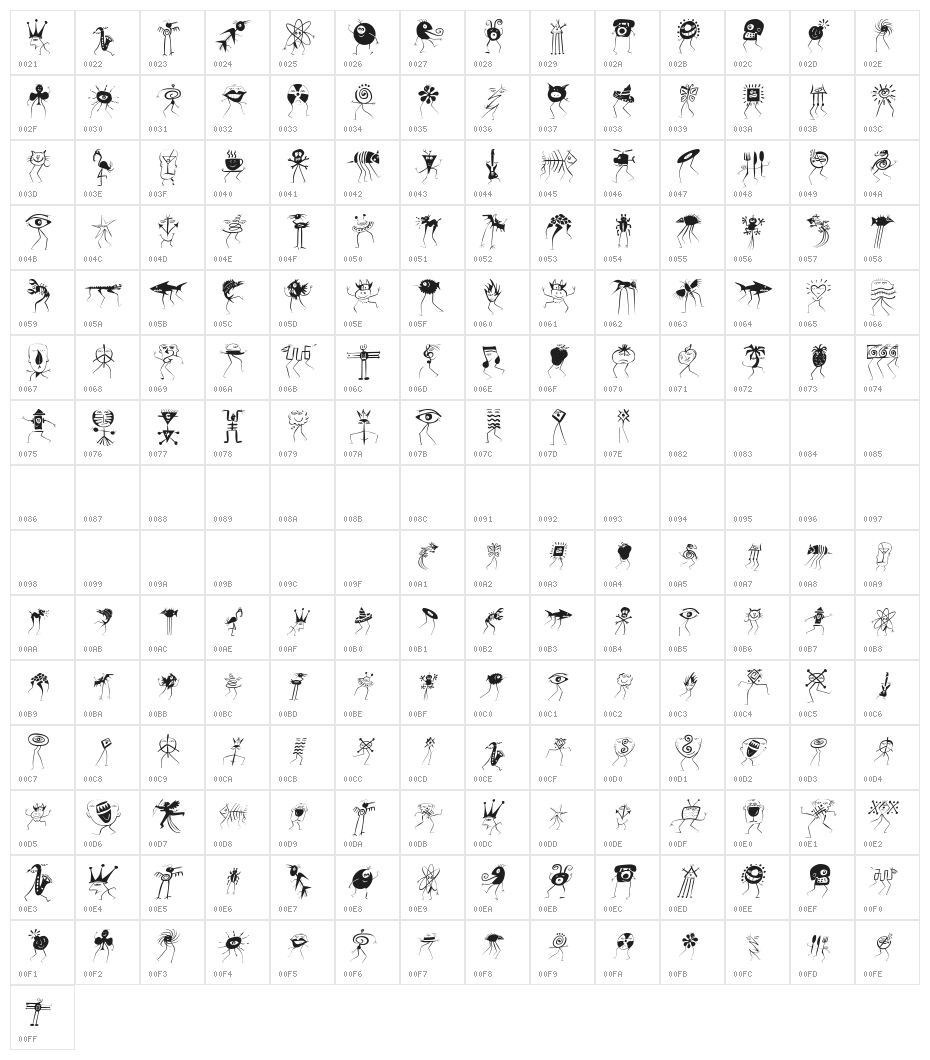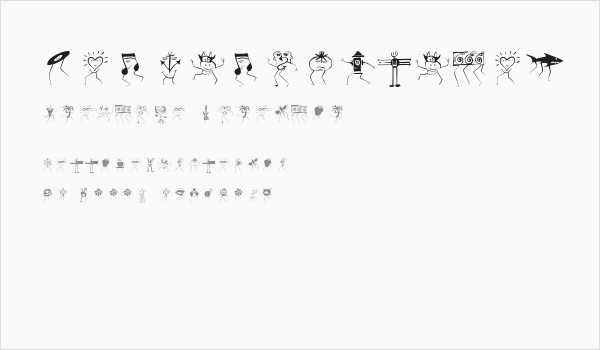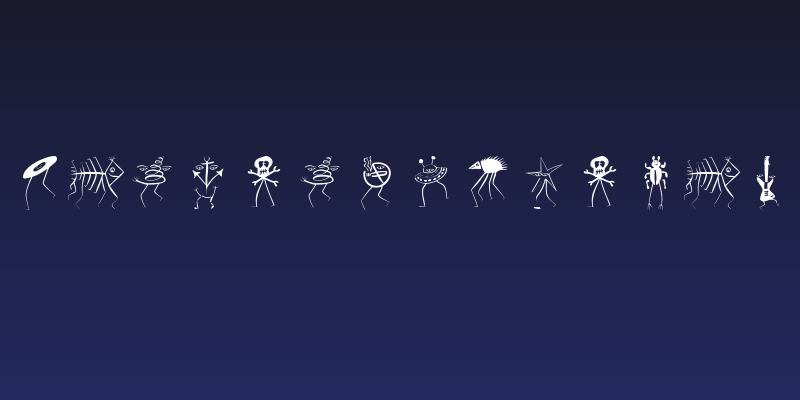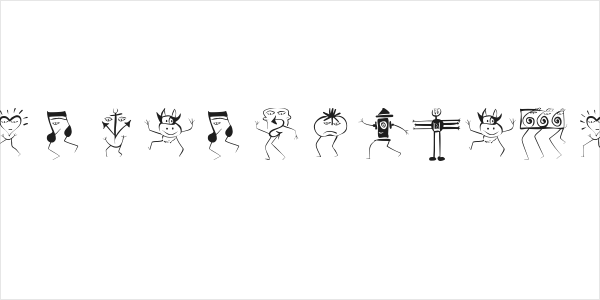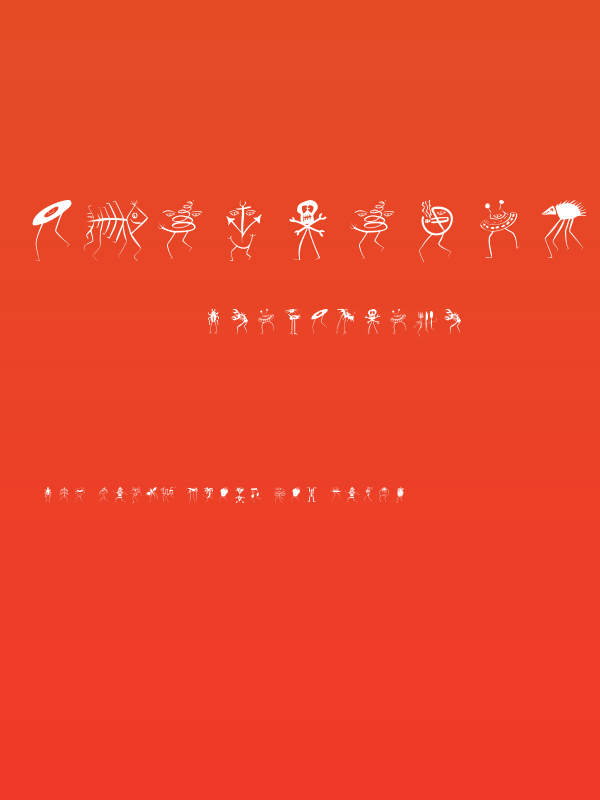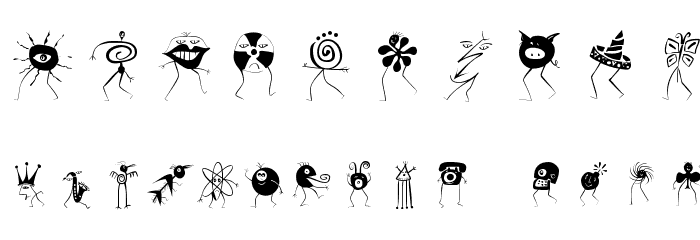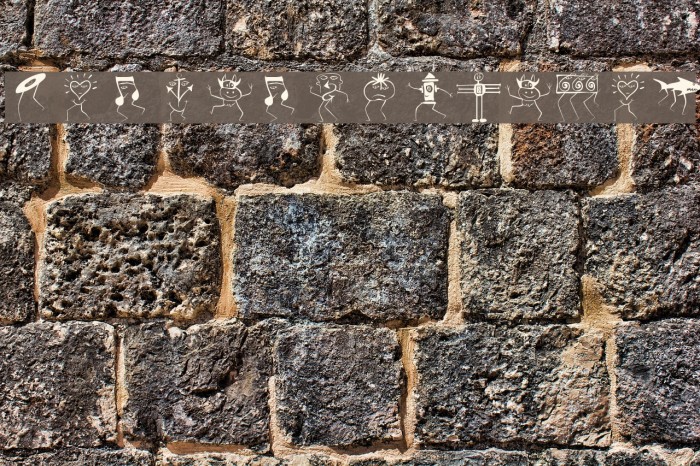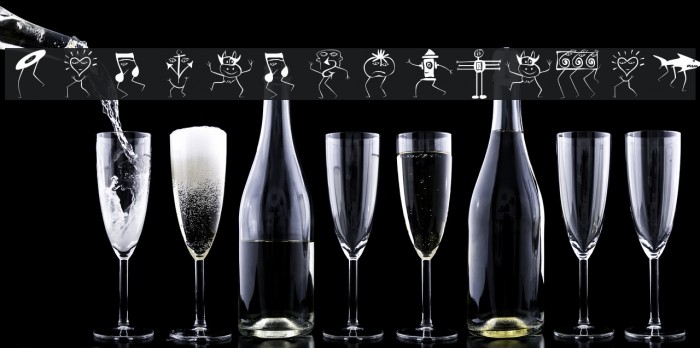
GenManipulated Font
GenManipulated Description
A highly decorative and whimsical font featuring playful, abstract, and surreal stick-figure characters, each letter and symbol uniquely illustrated with imaginative, cartoon-like designs. The glyphs are irregular, with varying line thickness and creative embellishments, making each character distinct and visually engaging.
| Overall Style | Decorative, Whimsical, Surreal |
| Use Case | Logos, Posters, Headlines, Creative Branding |
| Proposed Projects | Children’s books, party invitations, creative posters, album covers, art projects, branding for playful or unconventional products. |